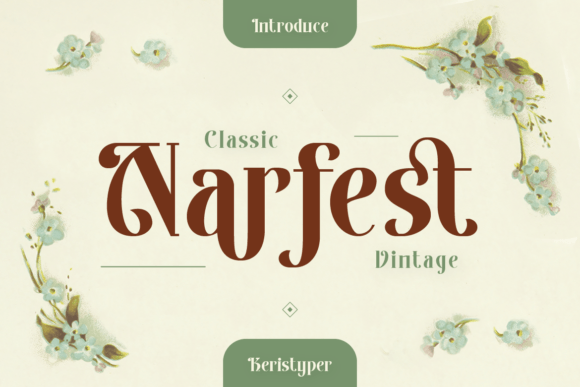
Journey into an enchanting realm of elegance and timeless beauty with Narfest, the quintessential serif font that encapsulates the essence of vintage charm and contemporary sophistication. Created by the ingenious mind of Keristyper, Narfest is not just a font; it's an artistic masterpiece that will transform your creative visions into tangible works of art.
As you embark on your typographic adventure with Narfest, you'll discover a world brimming with endless possibilities. This font is an orchestra of flowing lines and delicate curves, reminiscent of the Art Nouveau era. Its feminine and unique characteristics dance across the page, evoking a sense of nostalgia and sophistication that will leave you breathless.
With Narfest as your creative companion, you can craft logos that exude timeless elegance. Its intricate details and graceful swashes will elevate your designs to new heights, capturing the attention of your audience and leaving a lasting impression. Unleash your creativity on social media platforms, where Narfest's charm will captivate your followers and make your content shine.
Imagine movie titles adorned with Narfest's regal presence, beckoning audiences into worlds of wonder and enchantment. Book covers come alive with Narfest's enchanting touch, inviting readers to embark on literary journeys they'll never forget. Whether you're crafting short texts or embarking on long prose, Narfest will be your steadfast companion, guiding your words with grace and precision.
But Narfest's versatility doesn't stop there. Pair it with script, sans, or serif fonts, and watch as it harmonizes effortlessly, creating visual symphonies that will leave you spellbound. Narfest is the perfect complement to any design project, adding a touch of vintage allure that will make your work stand out from the crowd.